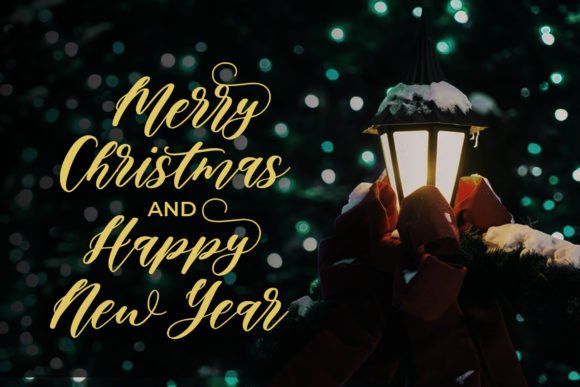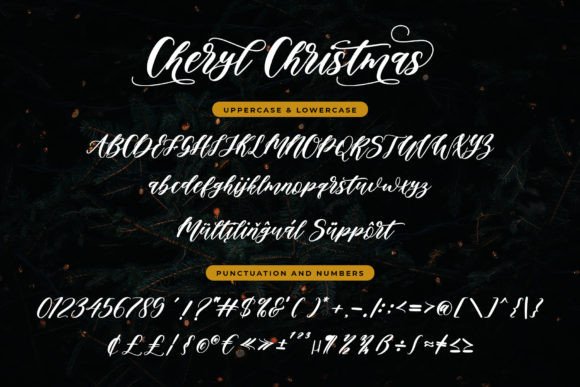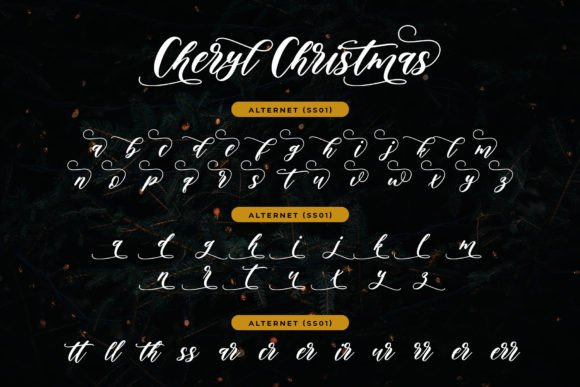
Introducing Cheryl Christmas Font: A Delicate Handwritten Masterpiece
Are you looking for a font that can add a touch of elegance and sophistication to your designs? Look no further than the Cheryl Christmas Font, a delicate handwritten font that is sure to become a true favorite among designers and crafters. With its contemporary and fresh look, this font is perfect for any design project you wish to create.
What Makes Cheryl Christmas Font So Special?
Cheryl Christmas Font is a beautifully crafted font that boasts a delicate and handwritten look. Its unique and elegant style makes it perfect for a wide range of design projects, from holiday cards and invitations to branding and packaging. The font is designed to be versatile and can be used for both personal and commercial projects.
Key Features of Cheryl Christmas Font
- PUA Encoded: The Cheryl Christmas Font is PUA encoded, which means you can access all glyphs and swashes with ease. This makes it easy to use and customize the font to suit your design needs.
- Delicate Handwritten Look: The font features a delicate handwritten look that is perfect for creating elegant and sophisticated designs.
- Contemporary and Fresh: The font has a contemporary and fresh look that makes it perfect for modern design projects.
- Versatile: The font is versatile and can be used for a wide range of design projects, from holiday cards and invitations to branding and packaging.
Why Designers and Crafters Love Cheryl Christmas Font
Designers and crafters love the Cheryl Christmas Font for its unique and elegant style. The font is perfect for creating beautiful and eye-catching designs that are sure to stand out. Here are some reasons why designers and crafters love this font:
- Elegant and Sophisticated: The font features an elegant and sophisticated look that is perfect for creating high-end designs.
- Easy to Use: The font is easy to use and customize, making it perfect for designers and crafters of all skill levels.
- Versatile: The font is versatile and can be used for a wide range of design projects, making it a great addition to any design library.
How to Use Cheryl Christmas Font in Your Designs
Using the Cheryl Christmas Font in your designs is easy. Here are some tips to get you started:
- Pair it with Other Fonts: Pair the Cheryl Christmas Font with other fonts to create a unique and eye-catching design.
- Use it for Headings and Titles: Use the font for headings and titles to add a touch of elegance and sophistication to your designs.
- Experiment with Different Colors: Experiment with different colors to find the perfect look for your design.
The Cheryl Christmas Font is a delicate handwritten font that is sure to become a true favorite among designers and crafters. With its contemporary and fresh look, this font is perfect for any design project you wish to create. Its PUA encoded feature makes it easy to use and customize, and its elegant and sophisticated style makes it perfect for creating high-end designs. Add the Cheryl Christmas Font to your design library today and make your designs outstanding!
Tips and Tricks for Using Cheryl Christmas Font
- Use it for Holiday Designs: Use the font for holiday designs, such as Christmas cards and invitations, to add a touch of elegance and sophistication.
- Experiment with Different Sizes: Experiment with different sizes to find the perfect look for your design.
- Pair it with Images: Pair the font with images to create a beautiful and eye-catching design.
Overall, the Cheryl Christmas Font is a beautiful and elegant font that is perfect for designers and crafters who want to add a touch of sophistication and elegance to their designs. With its delicate handwritten look and PUA encoded feature, this font is sure to become a true favorite among designers and crafters.